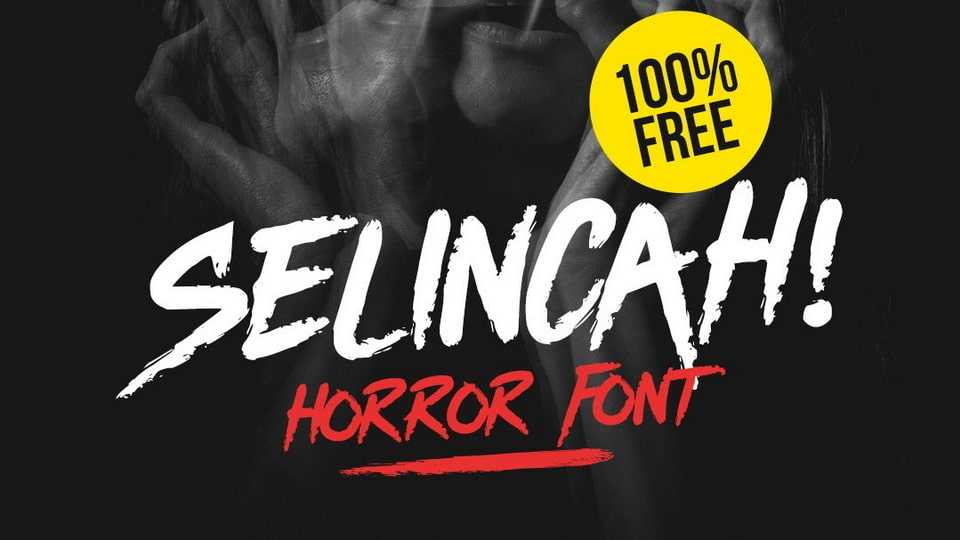
Download Selincah font, a horror hand-painted typeface that emerges from the depths of darkness with every stroke. Its jagged lines and unsettling brushstrokes are perfect for spine-chilling book covers, sinister movie titles, and Halloween-themed designs.